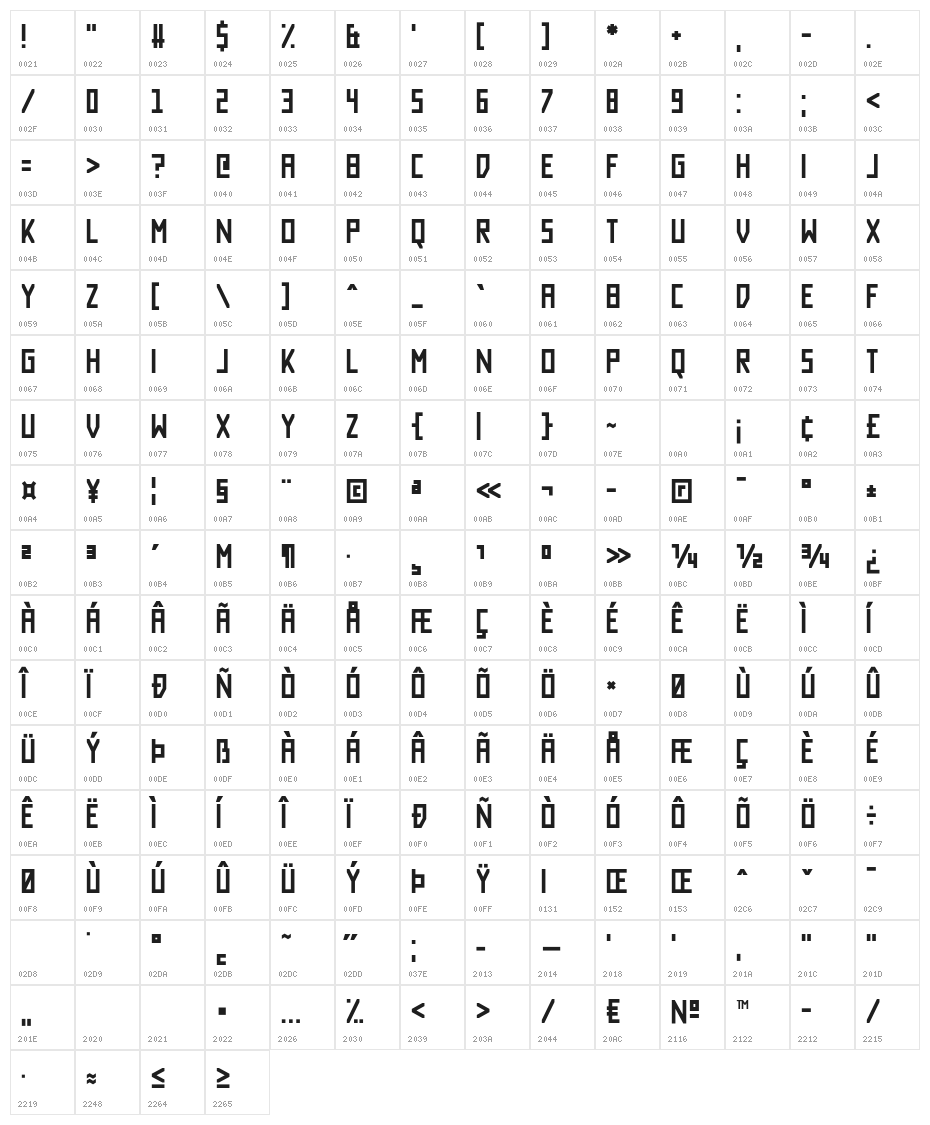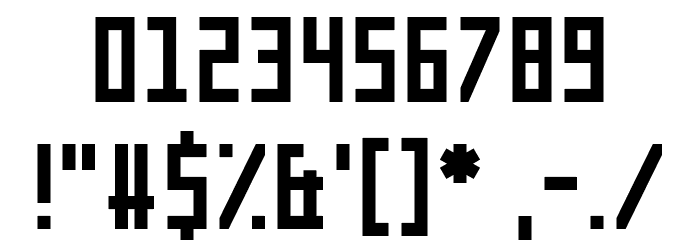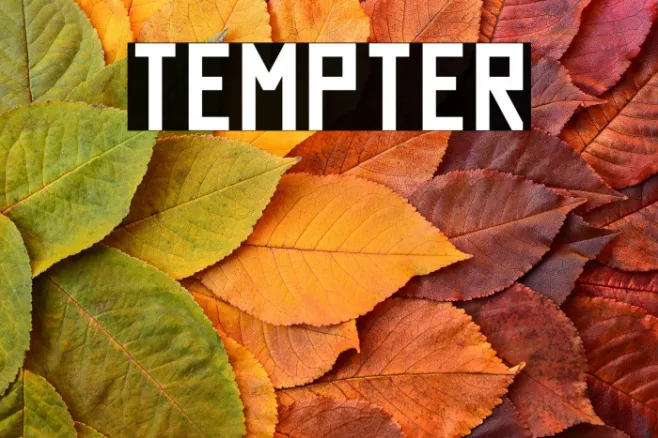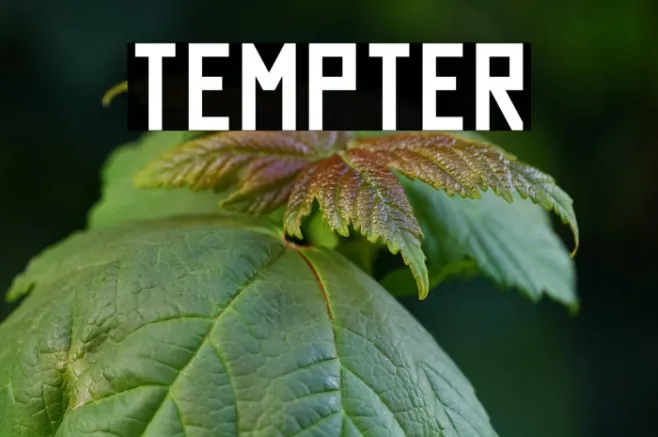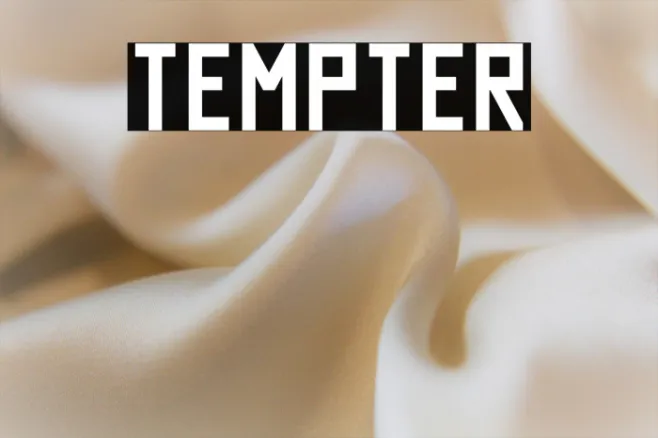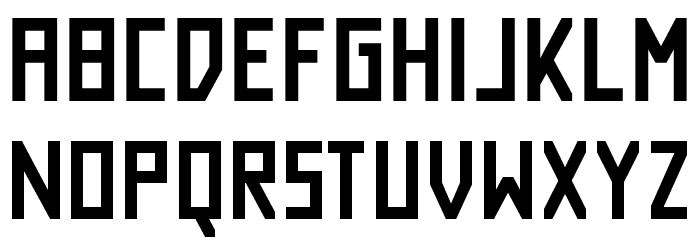
Tempter Font
Tempter Description
This font exhibits a bold and geometric style with a strong emphasis on angular lines and sharp corners. The characters are uniformly constructed, giving a sense of consistency and modernity. The uppercase and lowercase letters maintain a similar height, contributing to a monospaced appearance. Numbers and special characters are designed with the same geometric precision, ensuring readability and a cohesive look. The font's structure is straightforward, with minimal embellishments, making it suitable for digital displays and futuristic themes.
| Use Case | Logos, Headlines, Digital displays |
| Proposed Projects | Ideal for technology branding, digital interfaces, video game graphics, and futuristic posters. |